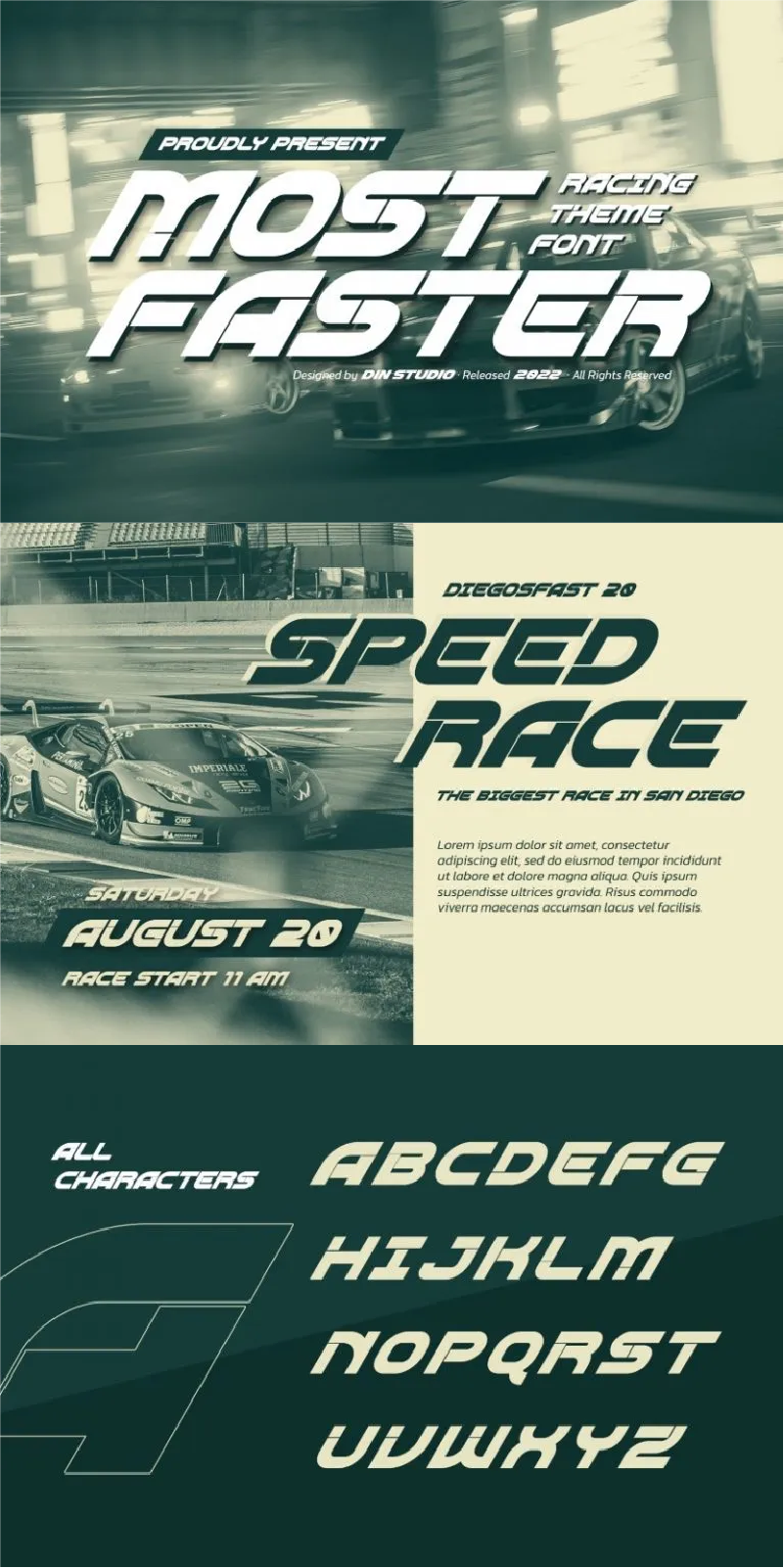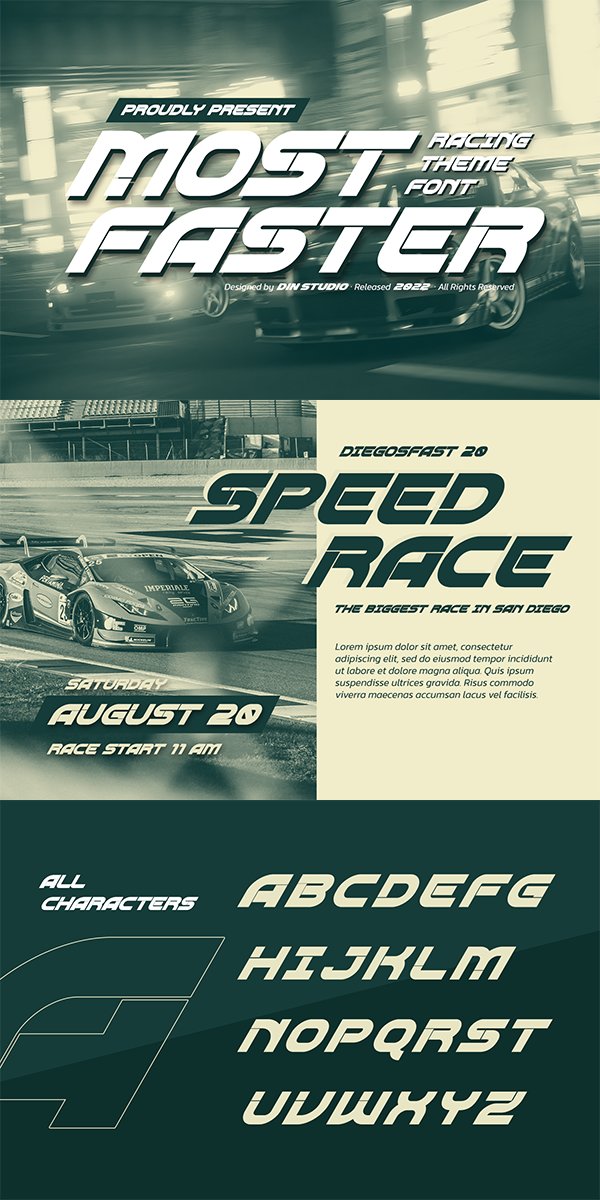
Most Faster Font
About Most Faster
Most Faster is cool designs and spectacular features will bring your designs into a brand new level. It is a font created in capital letters with the racing theme reflecting courageous masculine impressions. The strokes on each letter are similar to a sharp-angled rectangle.
Use Most Faster for any design projects such as posters, banners, logos, book covers, headings, printed products, merchandise, social media, and so on. Find out more ways to use this font by taking a look at the font preview.